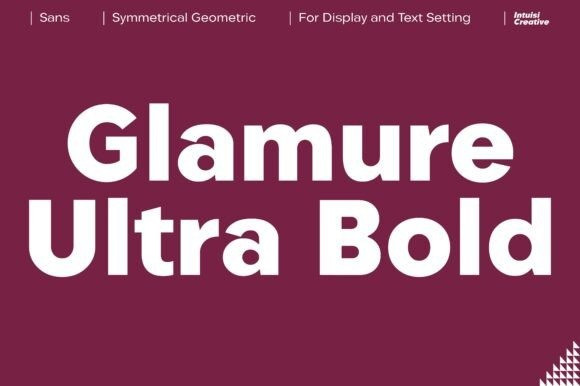
Glamure Sans Font an air of elegance and opulence, its every detail screams refinement, from its striking contrasts to graceful strokes. This font is the perfect expression of high-end branding – each character contributing to a sophisticated narrative. It’s irreplaceable for boutique packaging, elevating your products to a whole new level of prestige. Its elegance transforms cosmetic labels into a seamless blend of beauty and sophistication. And imagine sophisticated invitations, where each letter is the epitome of grace, serving as the perfect prelude to upscale events. Allow this single typeface to heighten your brand’s identity, adding a tangible element of value and transcendence.